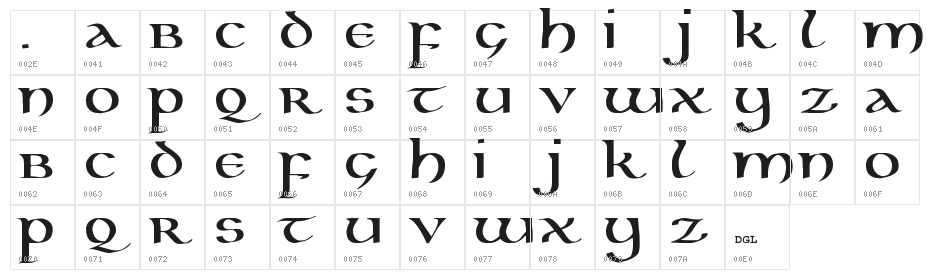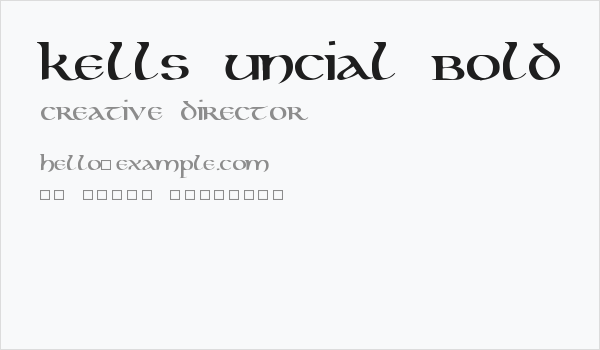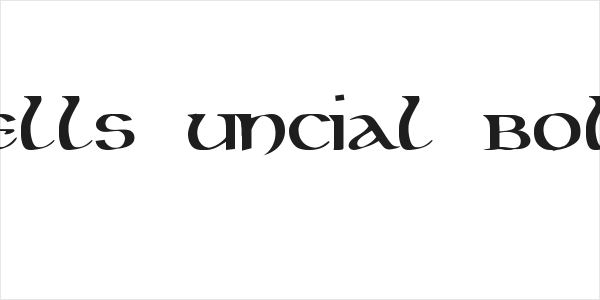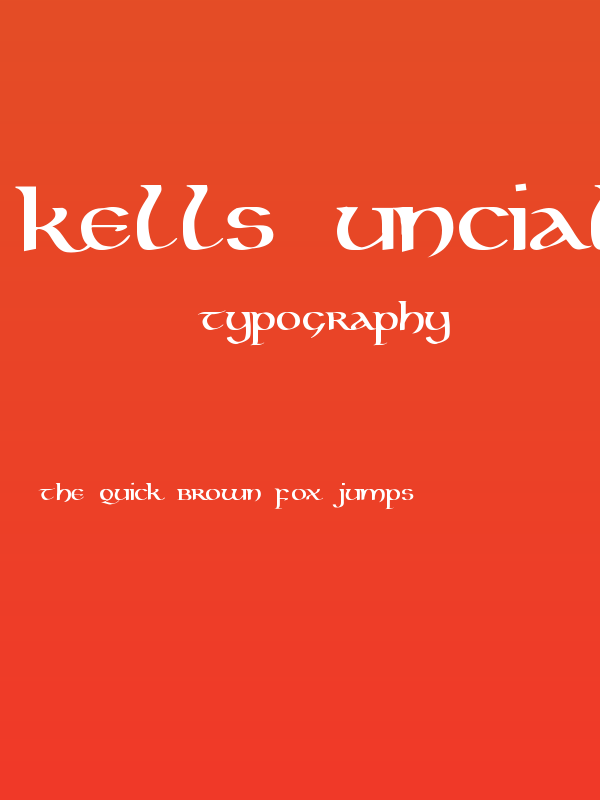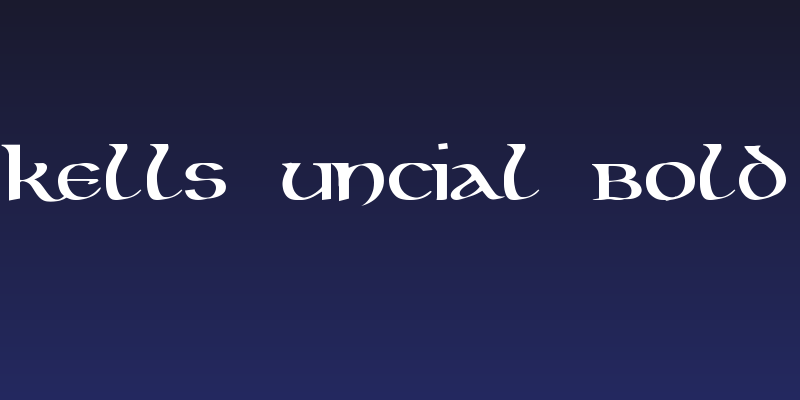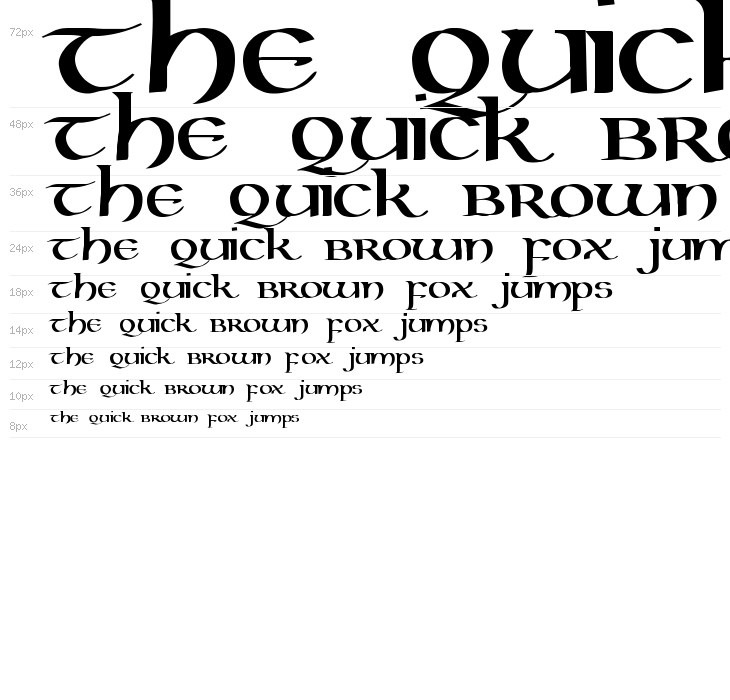
Kells Uncial Bold Font
Kells Uncial Bold Description
This font features a distinct uncial style, reminiscent of medieval script with its rounded, flowing forms. The characters exhibit a bold presence, with a slight slant that adds a dynamic quality to the text. The strokes are thick and consistent, providing a strong visual impact. The font's unique character shapes, such as the elongated descenders and ascenders, contribute to its historical and artistic appeal. The spacing between characters is moderate, ensuring readability while maintaining the font's decorative nature.
| Proposed Projects | Ideal for projects that require a historical or artistic touch, such as book covers, posters, or branding for cultural events. |